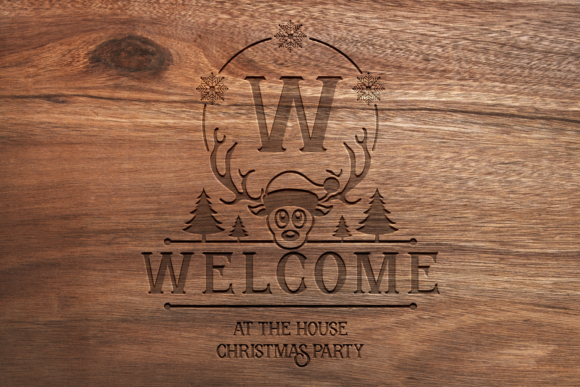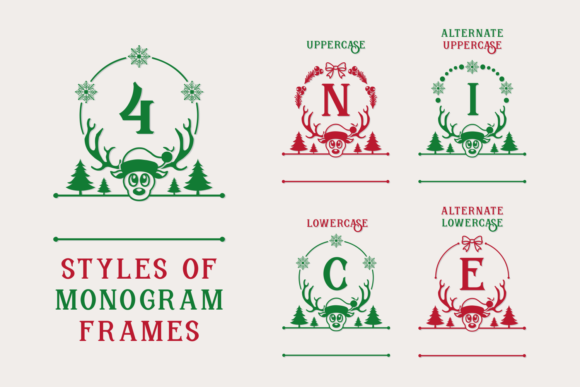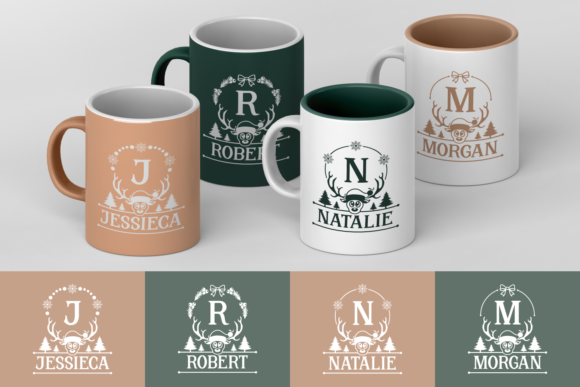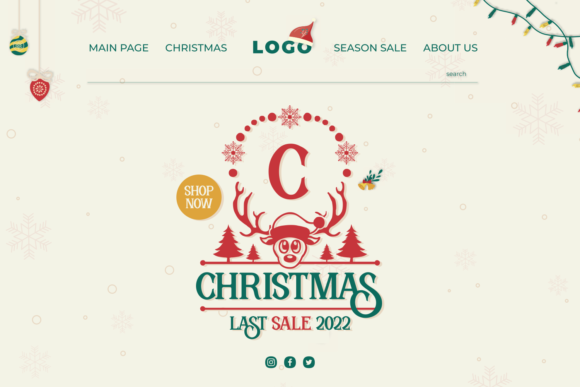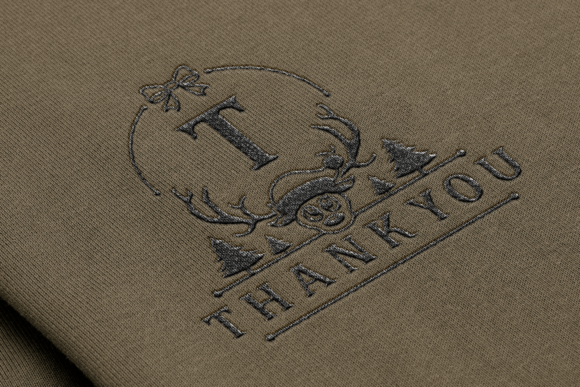
The Magic of Deermas Font: A Designer’s New Best Friend
I still remember the time I was working on a festive holiday project, and I just couldn’t find the perfect font to match the vibe I was going for. The client wanted something cute, playful, and full of holiday cheer, but everything I tried seemed either too boring or too over-the-top. That’s when I stumbled upon Deermas Font, and let me tell you, it was love at first sight! ✨
An Honest Review of Deermas Font
So, what makes Deermas Font so special? Here’s the lowdown:
- ✅ Cute and Festive: Deermas Font has a delightful, holiday-themed design that’s perfect for seasonal projects, from Christmas cards to Easter egg designs.
- ✅ Easy to Use: This font is a breeze to work with, even if you’re not a seasoned designer. Plus, it’s PUA encoded, which means you can access all the glyphs and swashes with ease!
- ✅ Highly Versatile: Deermas Font can be used for a wide range of craft designs, from paper crafting to digital art.
Of course, no font is perfect, and Deermas Font has a few minor quirks:
- ⚠️ Limited Character Set: While Deermas Font has a great selection of characters, it’s not a full-featured font with every possible character. This might be a limitation for some projects.
- 🤔 Not Suitable for Body Text: Due to its decorative nature, Deermas Font is best used for headlines, titles, or short text snippets, rather than long blocks of body text.
The Story Behind Deermas Font
Deermas Font was created with the intention of capturing the magic and wonder of the holiday season. The designer, inspired by childhood memories of festive decorations and snowy landscapes, aimed to craft a font that’s both cute and sophisticated. Whether you’re a designer, crafter, or hobbyist, Deermas Font is sure to bring a touch of holiday cheer to your projects.
| What is Deermas Font best used for? | Deermas Font is perfect for holiday-themed projects, such as Christmas cards, decorations, and digital art. |
| How do I access the glyphs and swashes in Deermas Font? | Glyphs and swashes can be accessed using OpenType features in compatible software, such as Adobe Creative Cloud or Canva. |